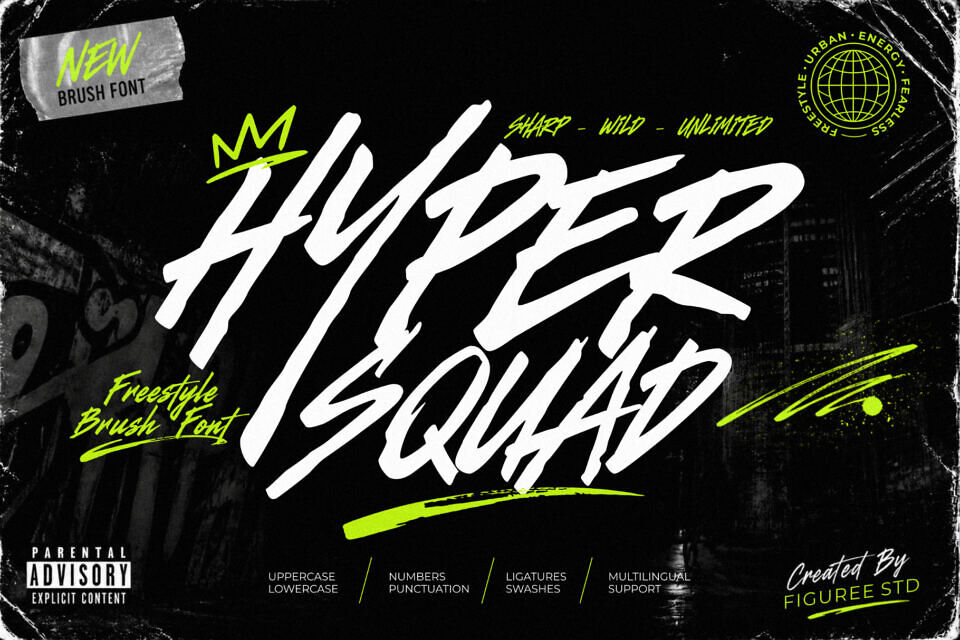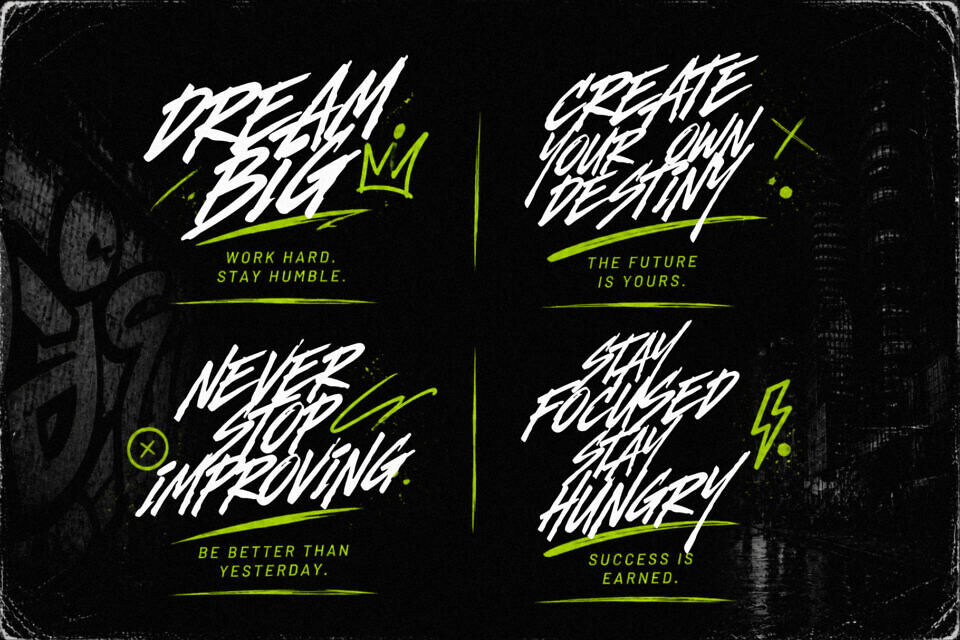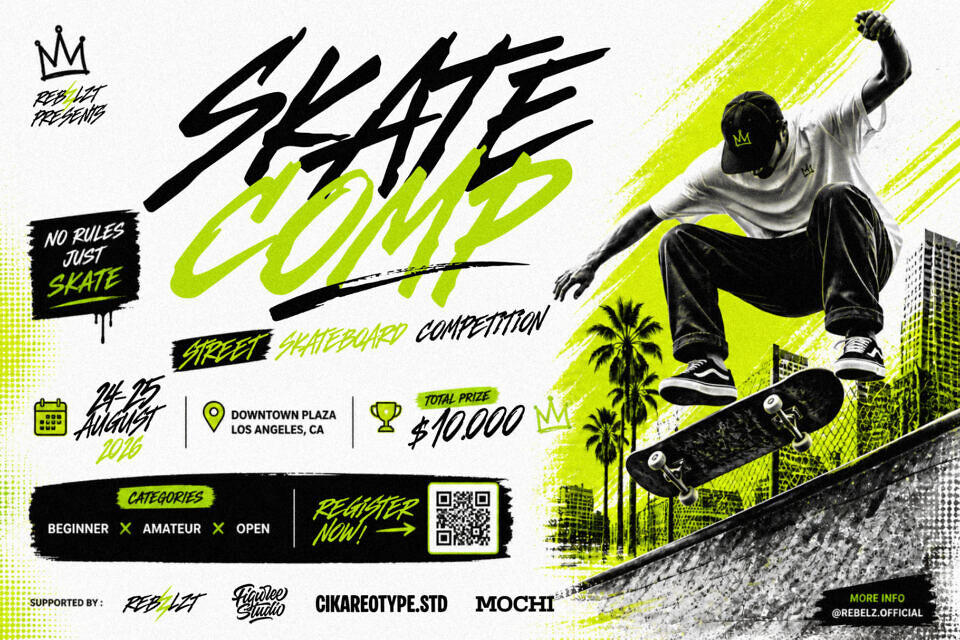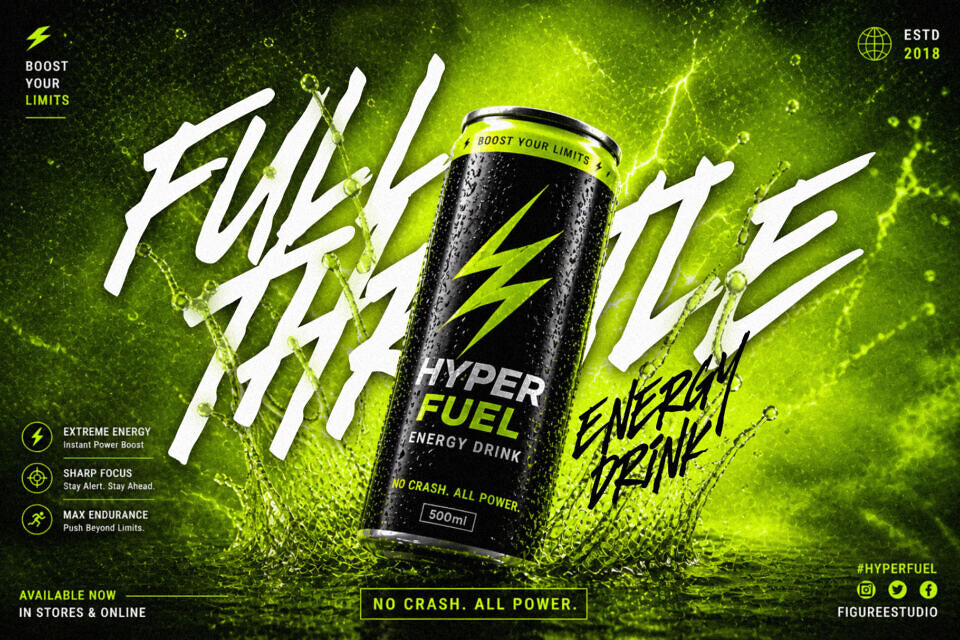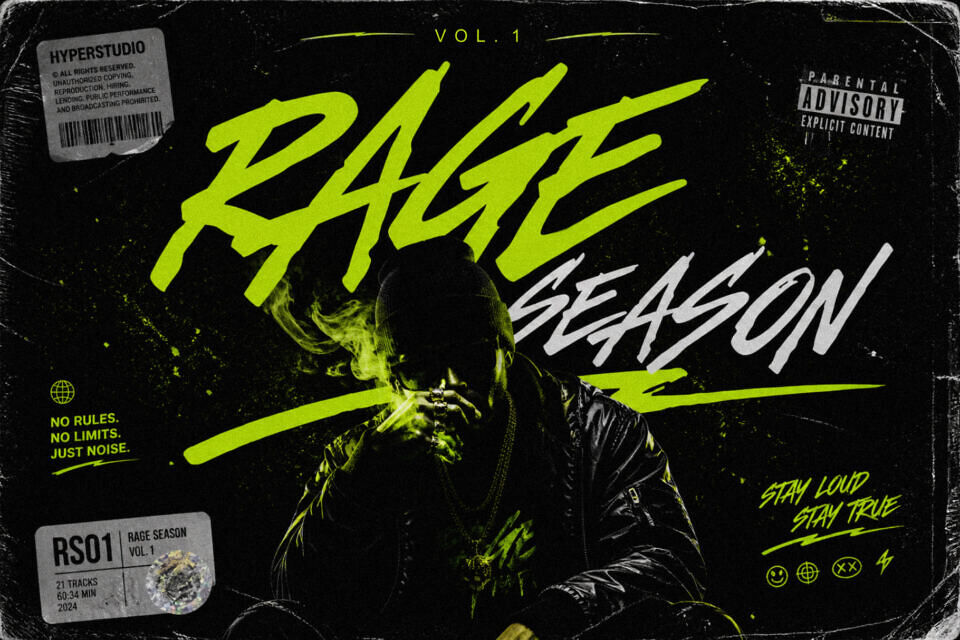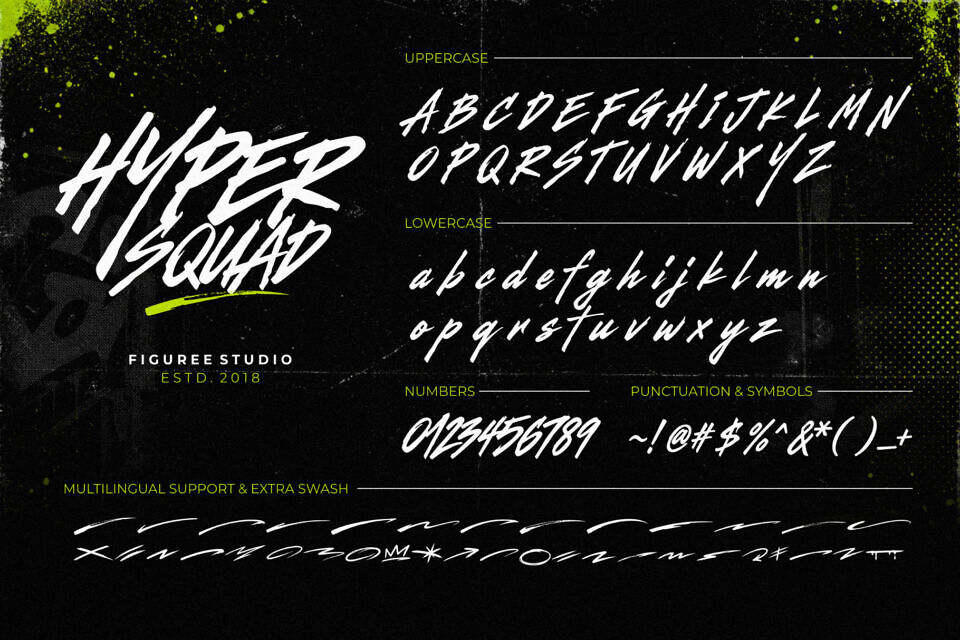
For designers seeking to add a personal touch, a dynamic font can make all the difference. Hyper Squad is a bold, hand-drawn font that brings energy and emotion to logos, posters, and branding. Its expressive strokes and details help create visually striking designs that stand out.
With Hyper Squad, designers can add attitude and creativity to their work, making it more impactful and unique. This font is perfect for those looking to elevate their designs and make a lasting impression.